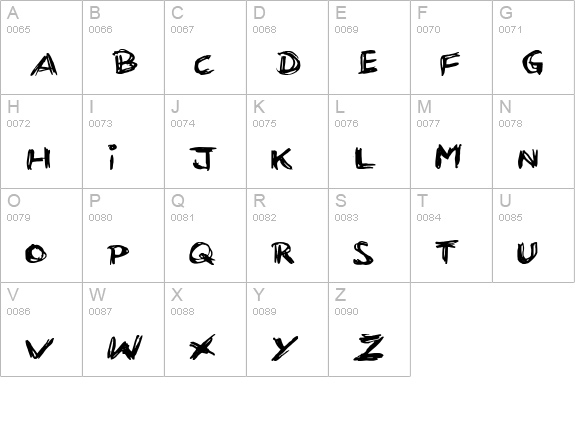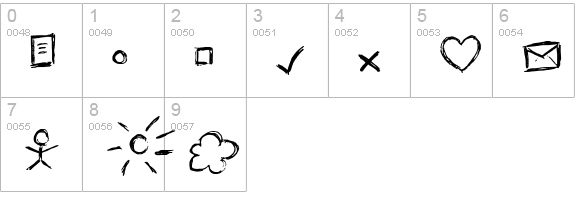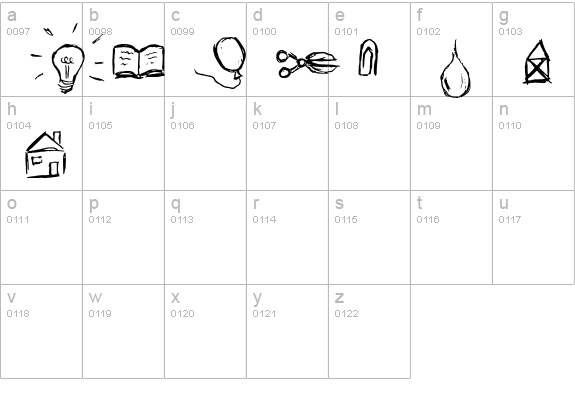
KRITZEL Font Details
Introducing KRITZEL font, a whimsical and playful typeface perfect for adding a touch of creativity to your designs. With its hand-drawn style and quirky charm, KRITZEL is sure to bring a unique flair to any project. This font is ideal for crafting eye-catching headlines, posters, invitations, and more. The best part? KRITZEL is available for free download at FontsMarket.com. So go ahead and unleash your imagination with this delightful font that will surely make your designs stand out. Let your creativity run wild with KRITZEL!